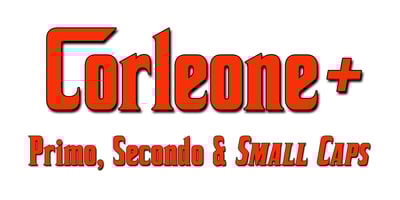
Corleone Font Family was designed by Michael Hagemann and published by FontMesa. Corleone contains 12 styles and family package options. Corleone was originally designed as a two font family in 2001 and offered for free.This year we’ve expanded the font family to twelve fonts including small caps and italics.While the new Corleone has been greatly refined and is a much more professional quality font we’ve decided to still offer the original two fonts for free.Corleone is the perfect font for t-shirts and other merch, the new small caps make this font stand out and bring attention to whatever you use it on.Corleone is the font you can’t refuse.Tech notes:Corleone was designed after a famous movie logo in the 1970’s with a title name that sounds a lot like The Grandfather if you know what I mean.The movies had three installments, my original font was patterned after the logo for the third movie, the new Corleone Primo and Secondo versions are patterned after the logos of the first two movies.The differences are noticed mostly in the lowercase letters.One thing you will not find in this font family is the puppeteer or puppet master hand because it’s been registered as a separate trademark of Paramount Pictures.If you’re using an application that works in layers then you’ll be interested in the four extra over score glyphs included in some of the versions of this font. Sorry, MS Word does not work in layers so this feature will not work in MS Word.When you open up the glyph map in Adobe Creative Suite you should see the over score glyphs when you scroll down to the bottom.These extra over score glyphs allow you to extend the top line of a single capital letter, with four different lengths you should be able to mix and match to achieve the length that you desire.When using the over score glyphs it’s best to divide your word or headline into separate text objects, the cap being one object and the remaining letters being the second.If you try using the over score glyphs on a single text object then with each over score that you add the text after it will get pushed down the line.